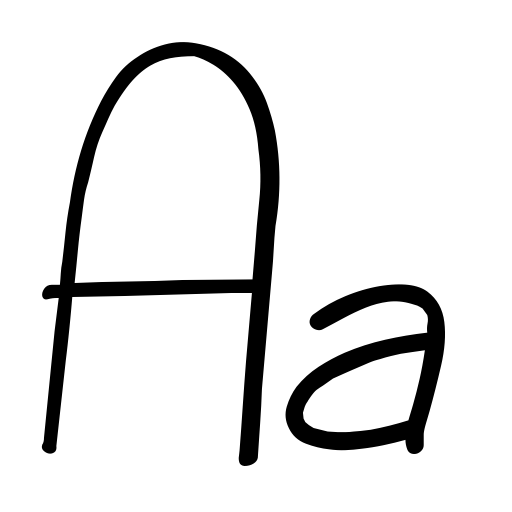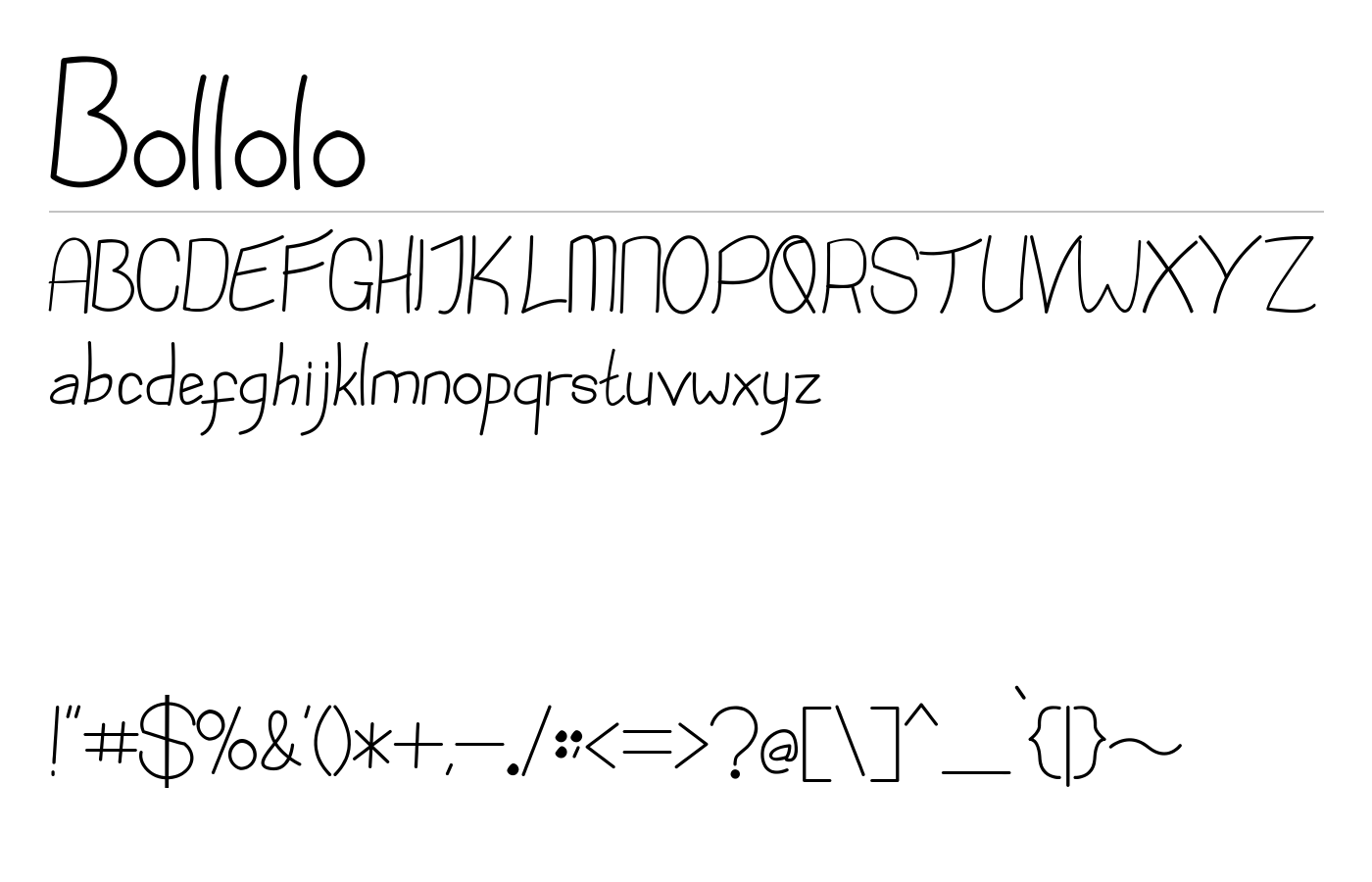
Bollolo is a slender, handwritten-style sans serif font with a casual and playful character. Its tall, narrow letterforms and slightly irregular lines give it a charming, informal feel, making it perfect for creative projects, personal branding, or playful editorial use. The font’s light weight and airy spacing ensure readability while maintaining a friendly and approachable tone.
Bollolo Font
About Bollolo Font